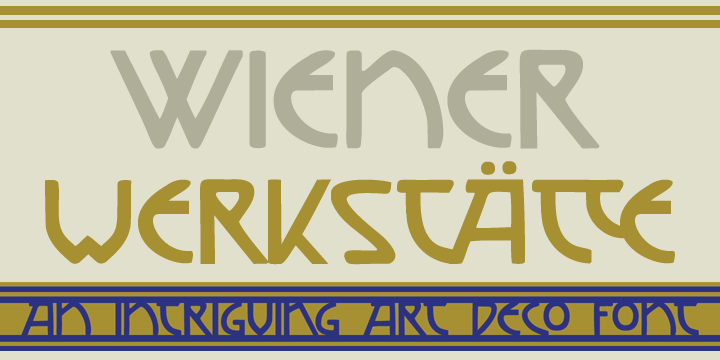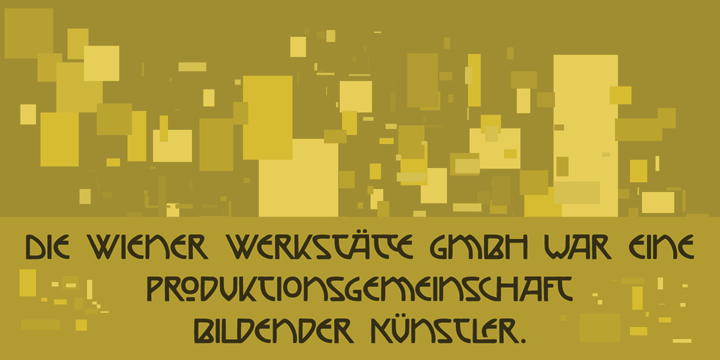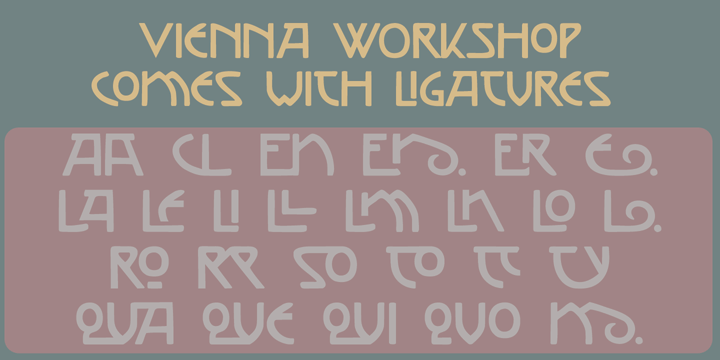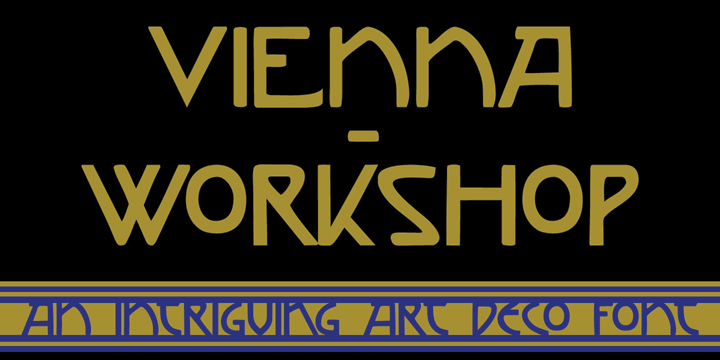
Vienna Workshop
The Vienna Workshop was a production community of visual artists, which operated from 1903 to 1932. The emphasis lay on fine craftsmanship and its motto was: ?Better to work 10 days on one product than to manufacture 10 products in one day?. The typeface before you was based on some of the artwork produced by Vienna Workshop artists, in particular that of Koloman Moser.
Vienna Workshop comes with some unusual glyphs, intriguing ligatures and Babylonian language support.